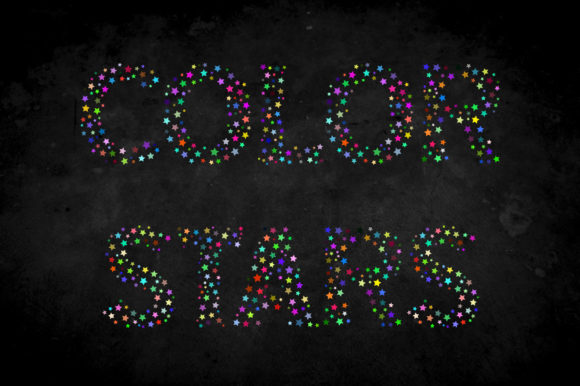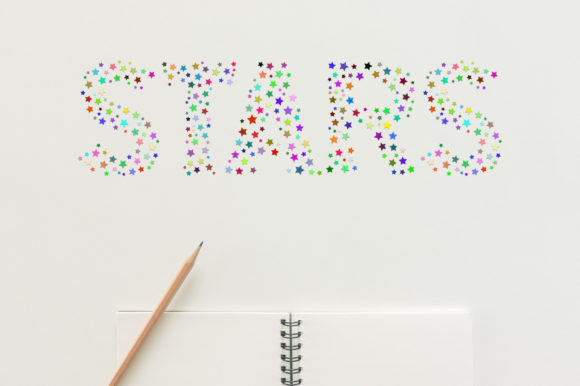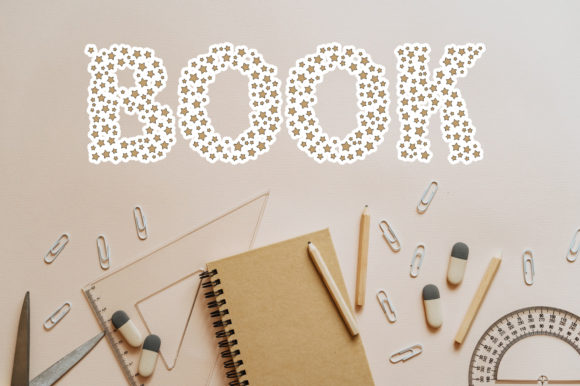
Introduction to Color Stars Font
Have you ever found yourself staring at a blank canvas, searching for the perfect spark to ignite your creative project? The thrill of bringing an idea to life is exhilarating, but sometimes it’s the smallest details that make all the difference. That’s where the enchanting Color Stars Font comes in – a mesmerizing decorative font that’s sure to transport your designs to new heights.
As a valuable design resource, the Color Stars Font is a game-changer for creative professionals and enthusiasts alike. Its dreamy, romantic quality is simply irresistible, making it an ideal addition to a wide range of designs. Whether you’re working on a free download or a high-quality commercial project, this font is sure to elevate your work to new levels.
With its stunning star ornaments and transparent background, the Color Stars Font is a must-have for any design project. Its versatility and charm make it an invaluable asset for designers seeking to create truly unique and captivating visuals.
Key Features of Color Stars Font
- High-quality design resource with a transparent background, ideal for creative projects.
- Includes a range of color variations, allowing users to customize their design to suit their needs.
- Vector-based, ensuring scalability and crisp rendering at high resolutions, up to 300 DPI.
- Perfect for use in various creative projects, including graphic design, digital art, and print materials.
Honest Review: Color Stars Font
I recently came across the Color Stars Font and was excited to dive in and see what it had to offer for my next creative project. As a designer, I’m always on the lookout for high-quality design resources that can help elevate my work.
One of the things that really stood out to me about this font is the variety of colors and styles it offers. ✨ I was able to find a design that perfectly fit my needs for a free download. The font is also incredibly versatile and can be used for a wide range of creative projects, from logos to infographics.
- Transparent background: This feature is a game-changer for designers who want to be able to layer their text and graphics seamlessly.
- High-quality design: The Color Stars Font is a beautiful addition to any design project, with crisp lines and vibrant colors.
While I did find the Color Stars Font to be a great resource, there are a few limitations to be aware of. ⚠️ For one, the font can be a bit overwhelming with too many options – it took me a while to decide on the perfect combination for my project. Additionally, the font may not be suitable for very small text sizes.
Overall, I’m really impressed with the Color Stars Font and would definitely recommend it to other designers looking for a high-quality design resource. With a little patience and practice, I’m sure you’ll find the perfect combination to take your creative project to the next level.
Tips for Getting the Most Out of Color Stars Font
Use the Color Stars Font for creative projects that require a high-quality, eye-catching font. Consider using it with a transparent background for added visual appeal.
The Color Stars Font is ideal for use in brochures, posters, social media graphics, and other design projects where a unique and engaging font is required.